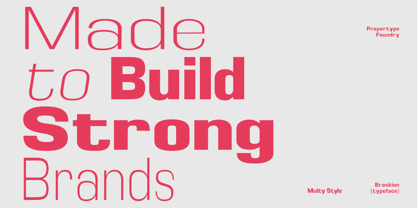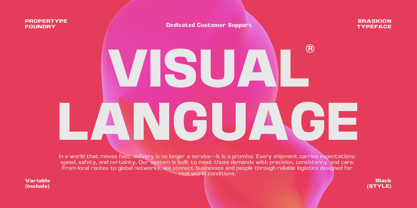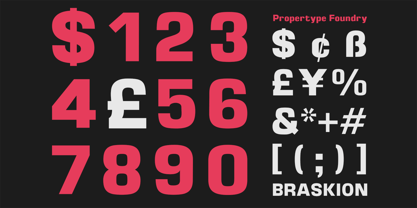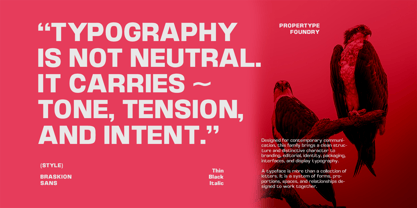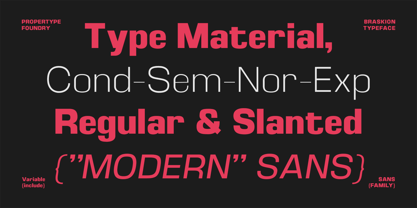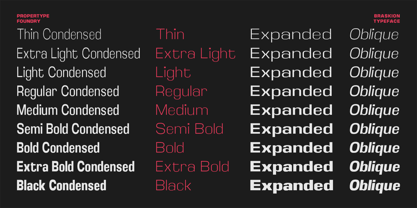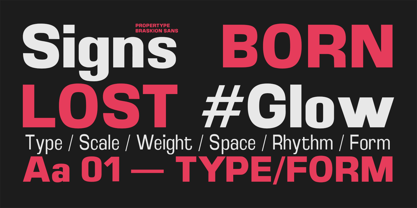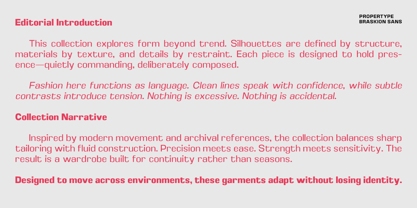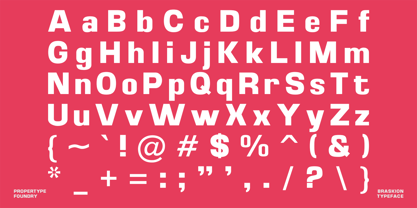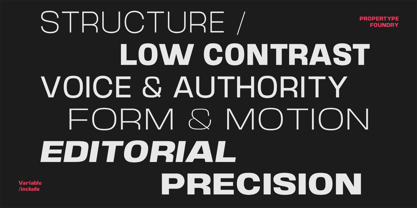
Braskion
by Propertype
The Braskion Font Family was designed by Nadia Auliana and published by Propertype. Braskion contains 175 styles and family package options. More about this family
Introducing Braskion Sans, a highly refined sans font that exudes an aura of elegance. Braskion's uniqueness lies in the harmonious blend of geometric shapes and graceful curved elements, resulting in a font with a unique and distinctive character. Embrace the sophistication of Braskion for all your typography needs.
Braskion Text also comes with 90 Variable versions to make it easy for designers to explore and refine beautiful designs, revealing many visual nuances and hidden secrets.